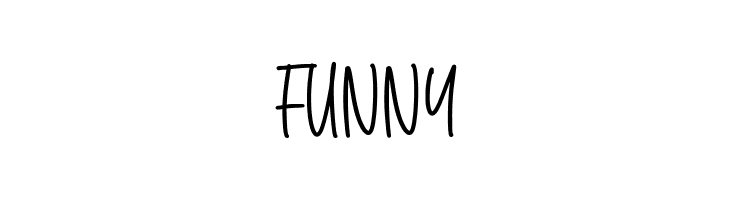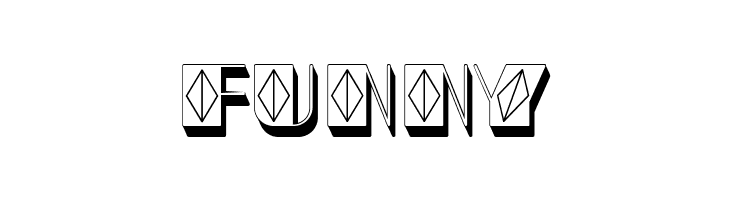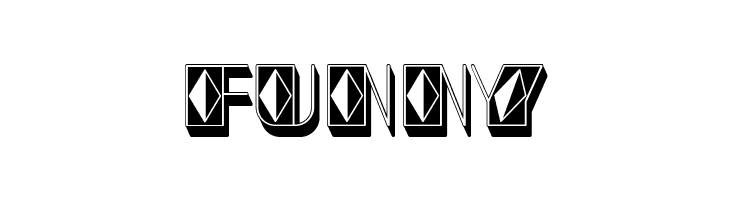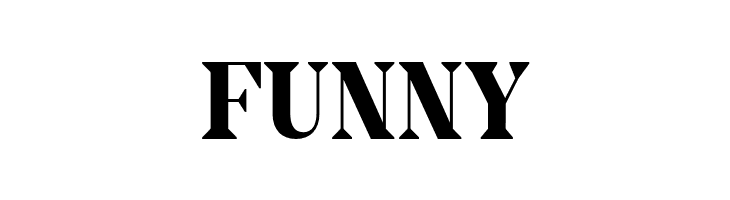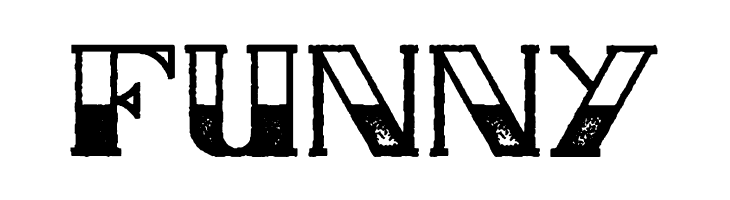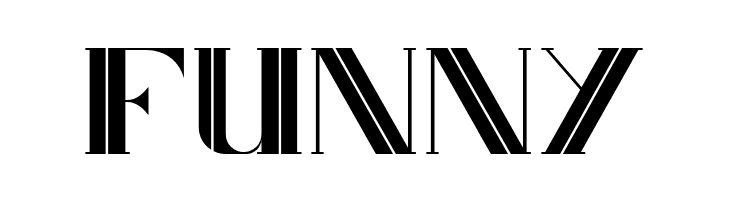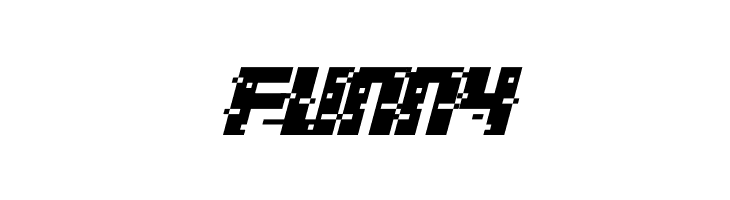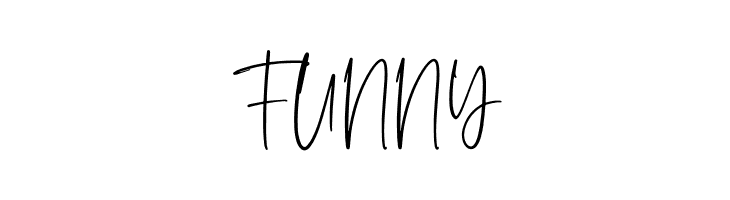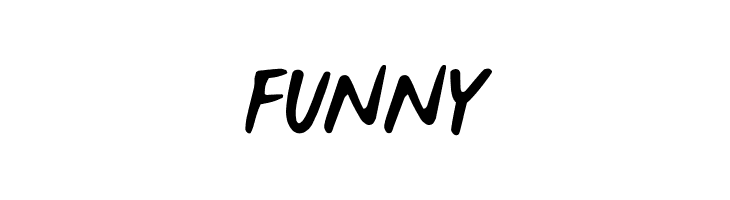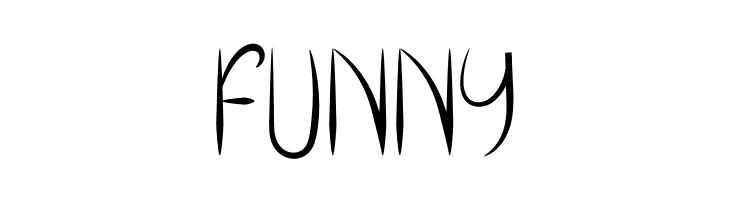
A bold, angular font with a digital, glitch-like aesthetic and italicized slant.
A decorative, geometric font with a futuristic and cryptic design.
An artistic, high-contrast font with elongated, narrow characters and a hand-drawn feel.
A decorative font with high contrast and intricate, swirling lines.
A playful, casual handwritten font with smooth, flowing lines.
A modern, geometric font with clean lines and a condensed style.
A bold, futuristic font with sharp angles and a geometric structure.
A futuristic, italic font with sharp angles and high contrast, perfect for dynamic designs.
A bold, futuristic font with sharp, angular edges and a geometric style.
A bold, geometric font with Art Deco influences, ideal for vintage-modern projects.
A bold, geometric font with Art Deco influences, perfect for striking designs.
A bold, italicized font with geometric angles and a modern, dynamic style.
A bold, italicized font with angular, geometric design and Art Deco influences.
A modern, cursive script font with elegant, elongated letters and a sleek appearance.
A bold, geometric font with a 3D hollow design and diamond patterns.
A bold, geometric font with a three-dimensional, futuristic design.
A bold, energetic handwritten font with smooth, flowing curves.
A bold, playful font with star motifs and rounded characters.
A bold, playful font with star motifs in each character.
A bold, brushstroke-style font with dynamic, jagged edges.
A bold, futuristic font with sharp angles and a geometric structure.
A bold, distressed font with a rugged, edgy texture.
A bold, geometric font with a modern and striking design.
A bold serif font with strong strokes and a modern twist.
A bold, serif font with strong, authoritative strokes and classic elegance.
A rugged, medieval-inspired font with a distressed, hand-crafted appearance.
A bold, distressed font with a rough, textured appearance, perfect for vintage or industrial designs.
A bold, high-contrast font with geometric shapes and dramatic serifs.
A bold, geometric font with a futuristic and technical design.
A modern, italic font with geometric, angular design and dynamic slant.
A bold, blackletter-inspired font with intricate detailing and dramatic flair.
A bold, italic serif font with elegant flourishes and dynamic style.
A bold, decorative font with intricate serifs and high contrast strokes.
An ornate, decorative font with intricate geometric patterns and a historical aesthetic.